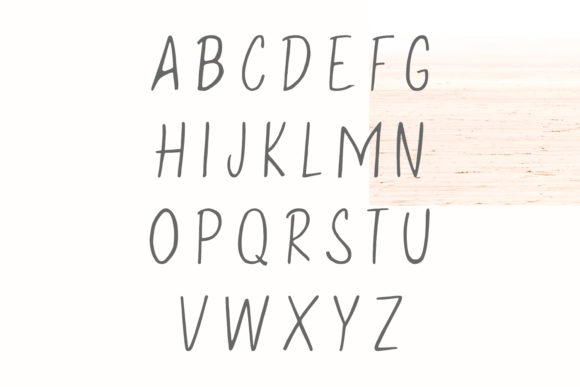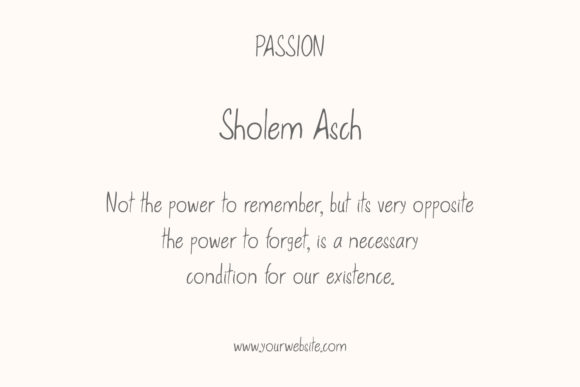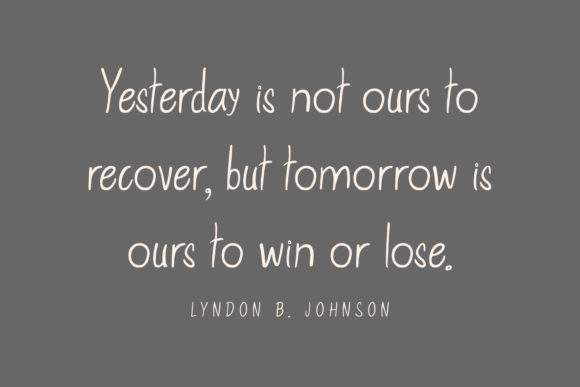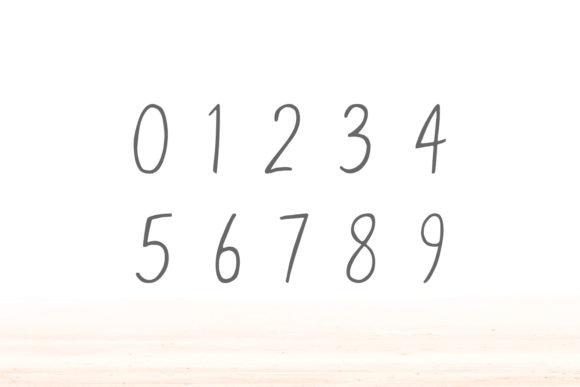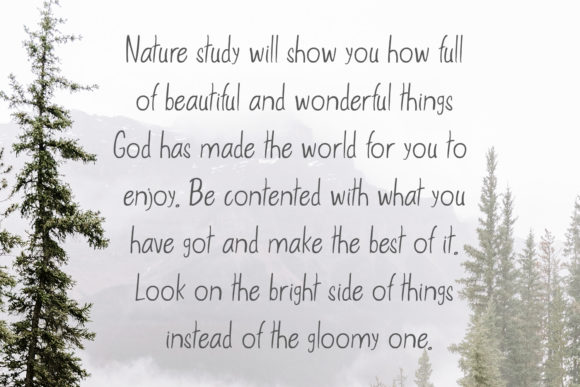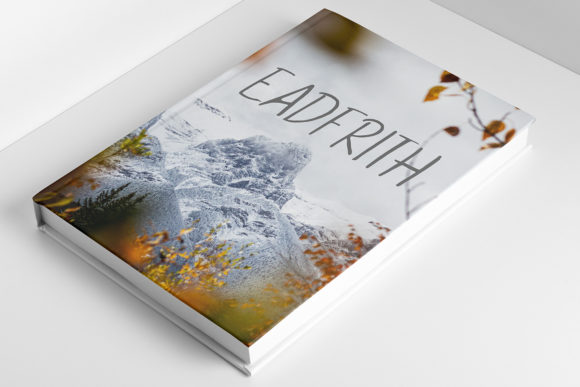
Eadfrith Font
About Eadfrith Font
Eadfrith is a sweet and friendly handwritten font. Its simple style and neat characters make this design particularly adept to a wide range of contexts. Fall in love with Eadfrith and elevate your projects to the highest levels!